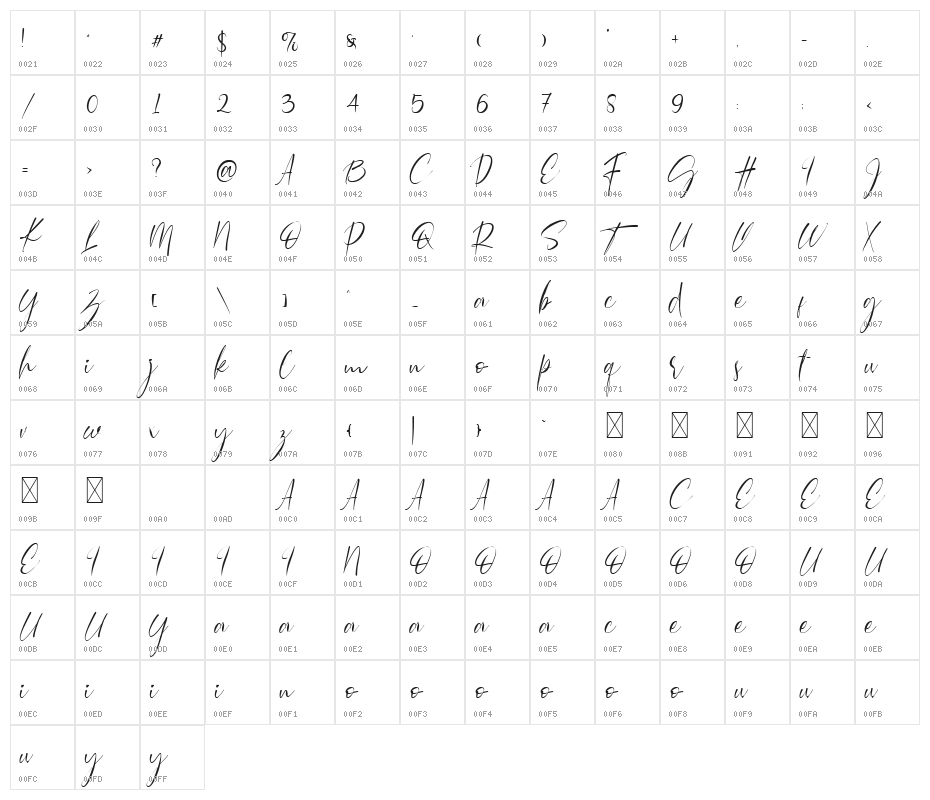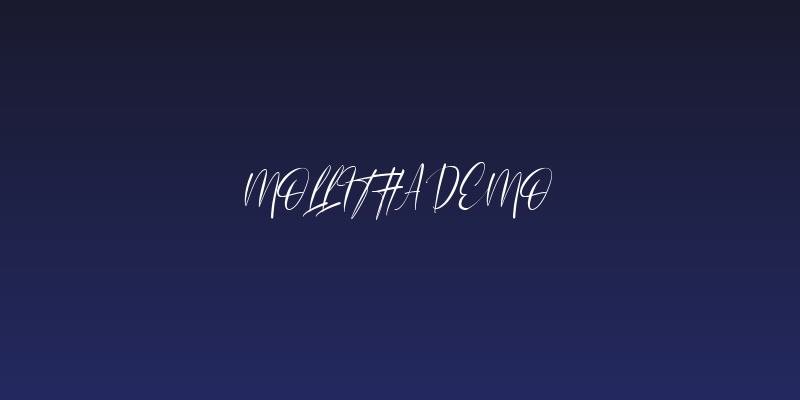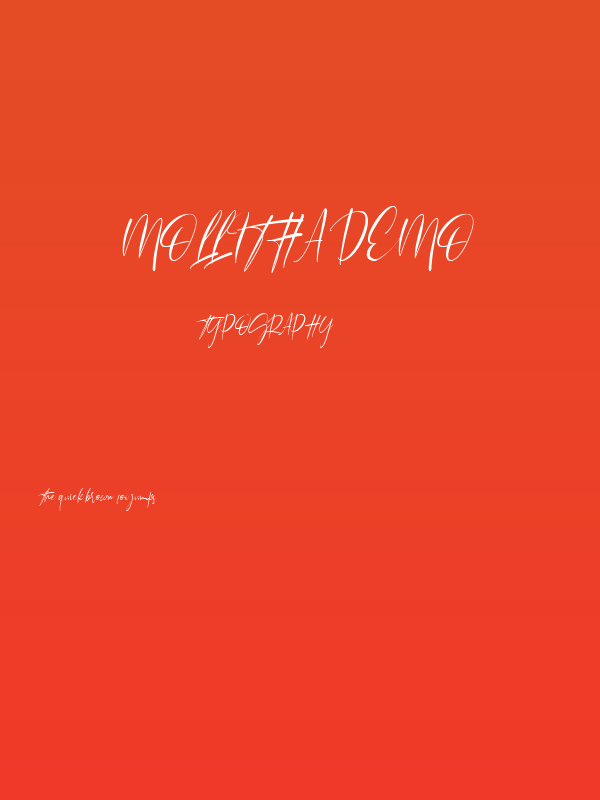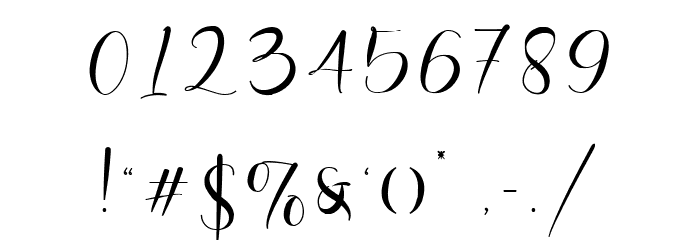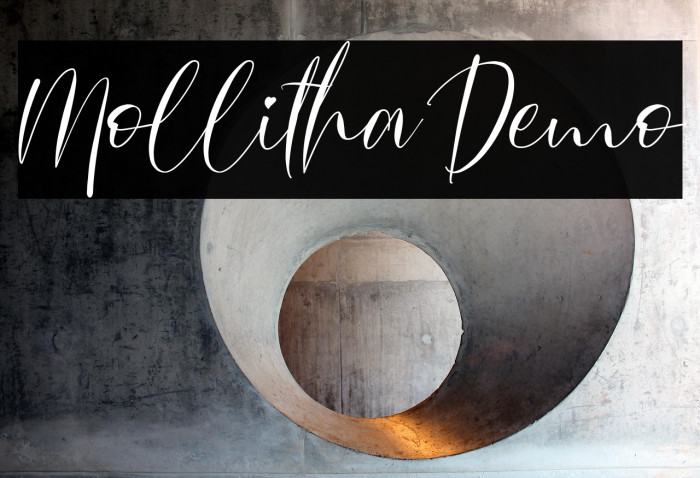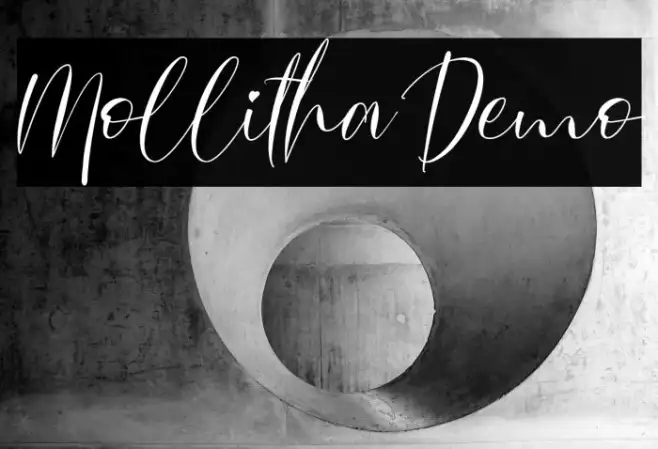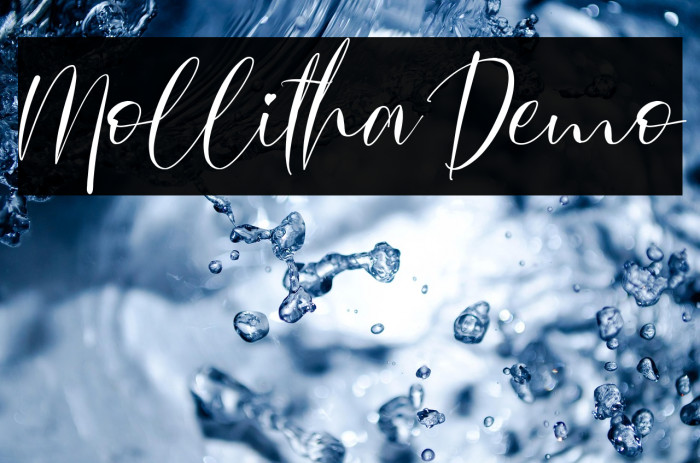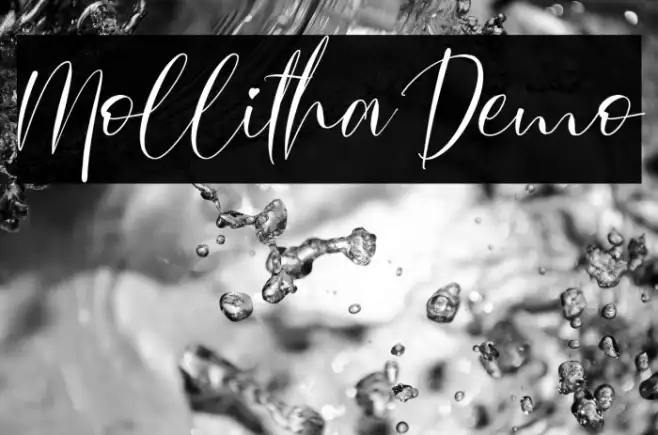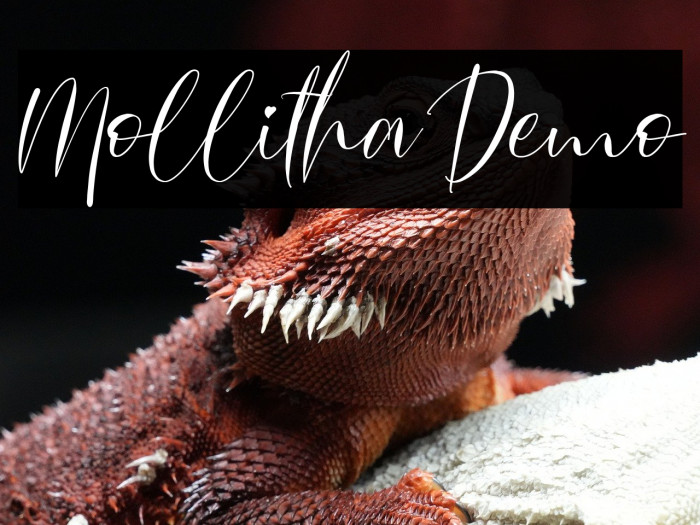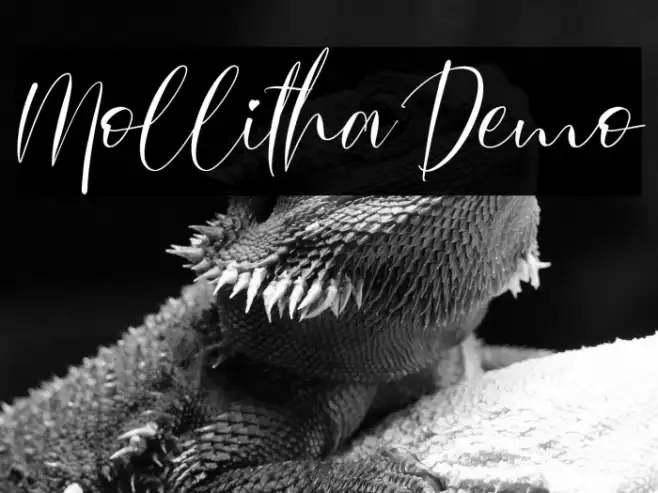
Mollitha Demo Font
Mollitha Demo Description
This elegant script font features a flowing, handwritten style with a modern touch. The characters are gracefully connected, creating a sense of fluidity and movement. The uppercase letters are tall and slightly exaggerated, while the lowercase letters maintain a consistent, smooth flow. The numbers and special characters are designed to complement the overall aesthetic, with a delicate balance between bold strokes and fine lines. This font exudes sophistication and charm, making it ideal for projects that require a personal and artistic touch.